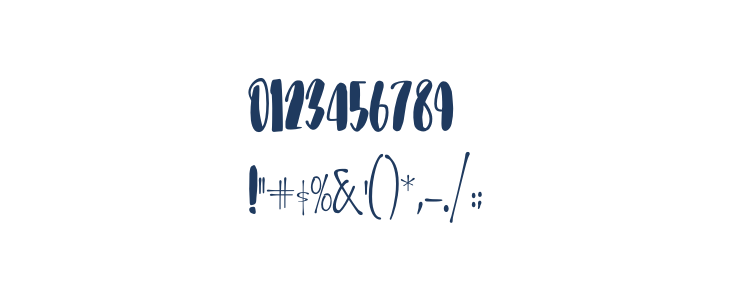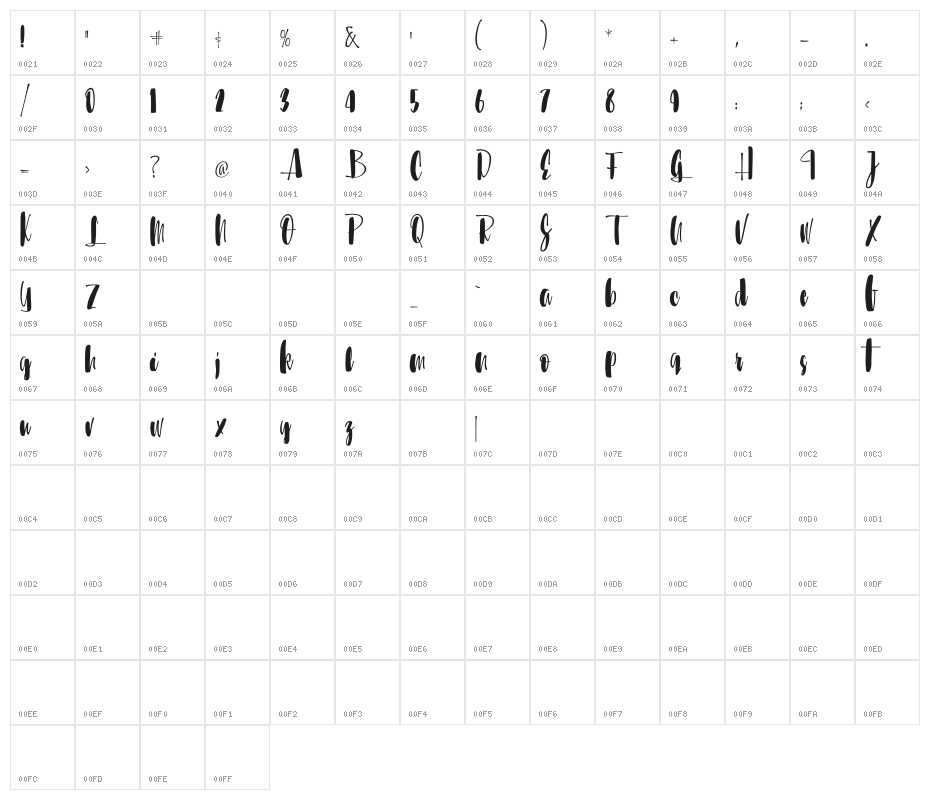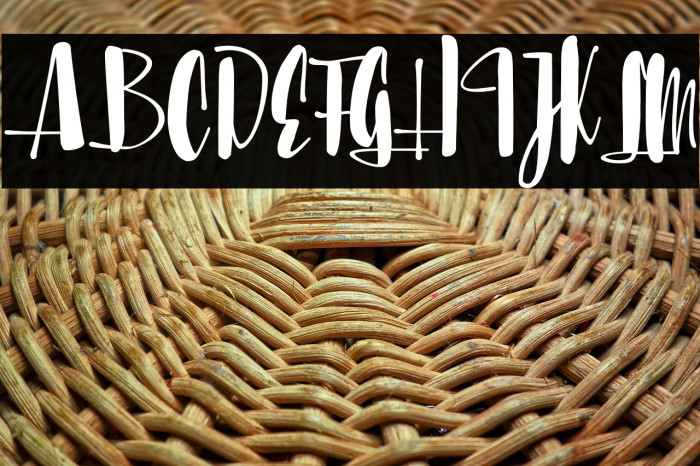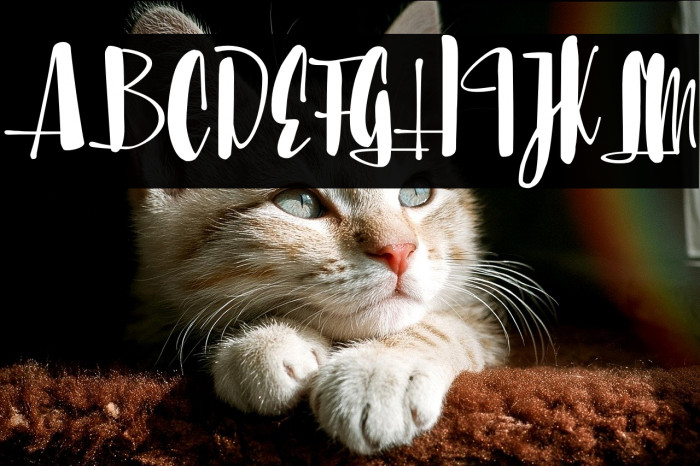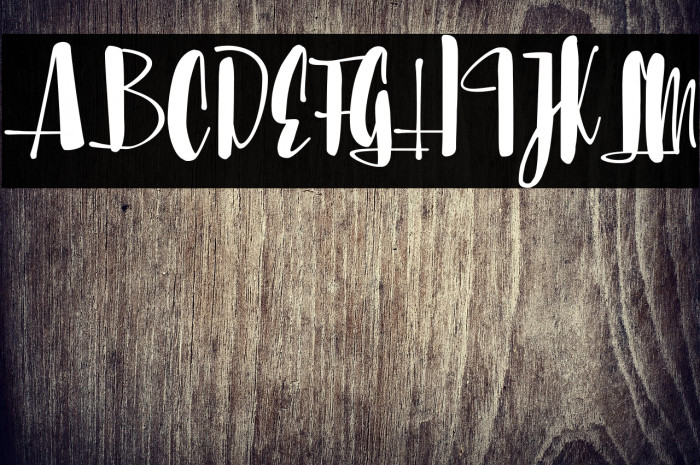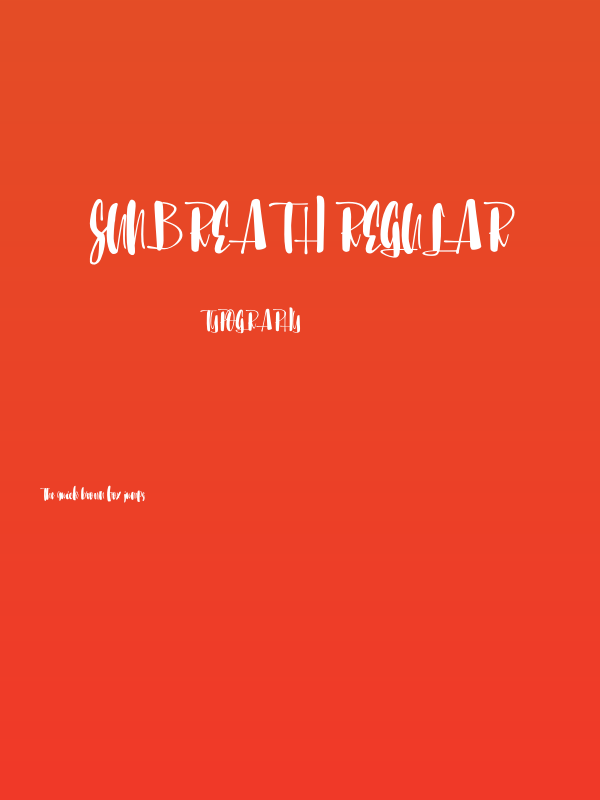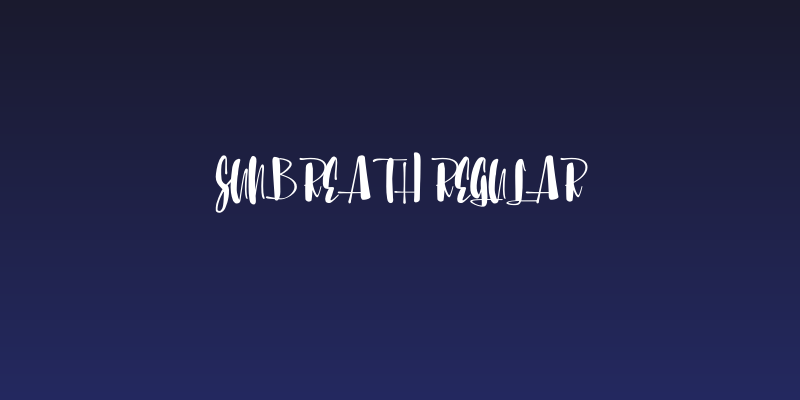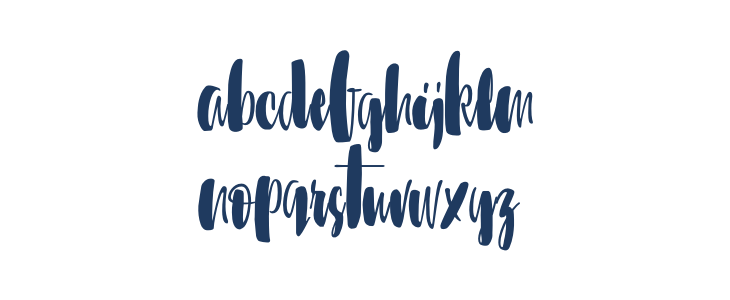
Sunbreath Regular Font
Sunbreath Regular Description
This font exhibits a bold and expressive handwritten style, characterized by its flowing and dynamic letterforms. The uppercase letters are tall and slightly condensed, with a playful yet sophisticated flair. The lowercase letters maintain a consistent rhythm, enhancing readability while preserving the artistic touch. The numbers are bold and clear, matching the overall aesthetic of the font. Special characters are creatively designed, adding to the font's versatility. The thick strokes and smooth curves give it a modern and energetic feel, making it suitable for a variety of creative projects.